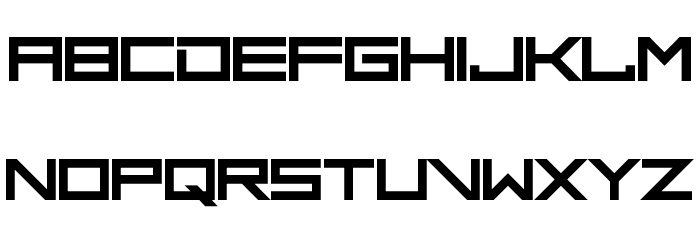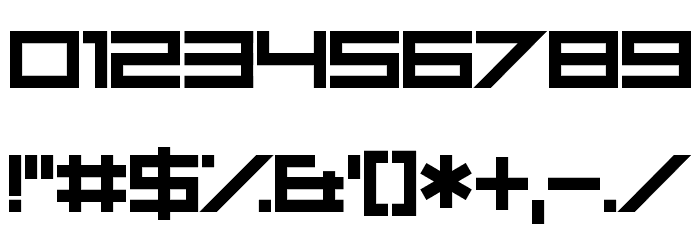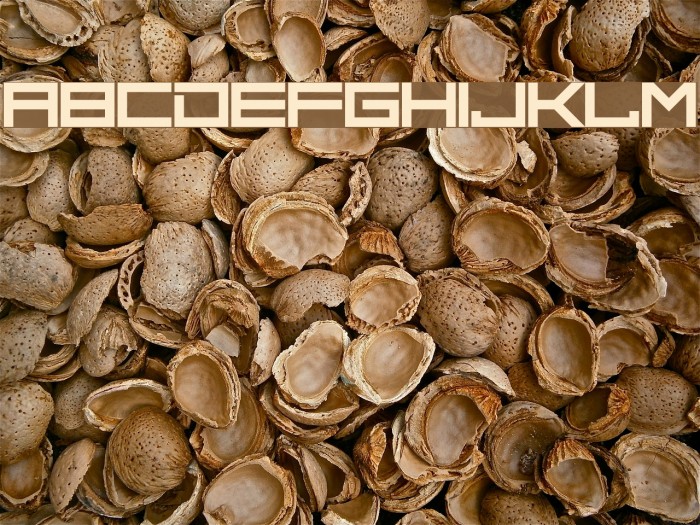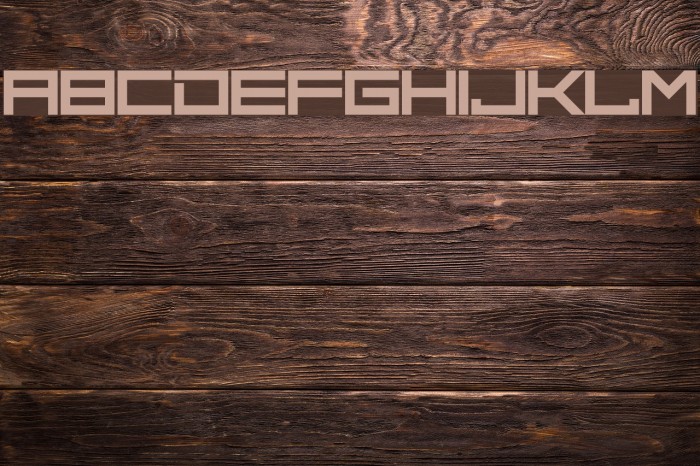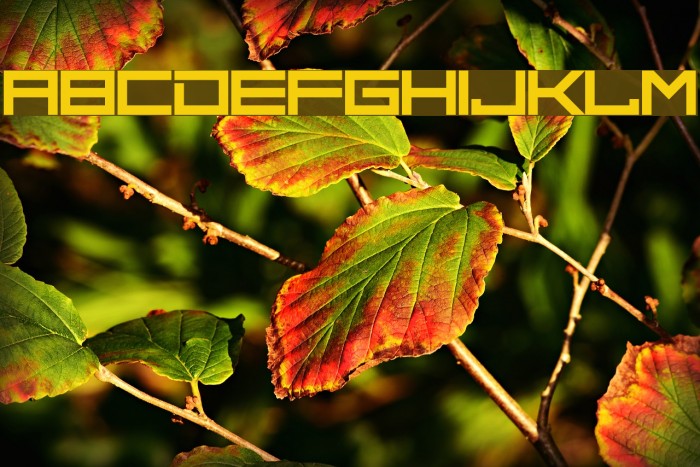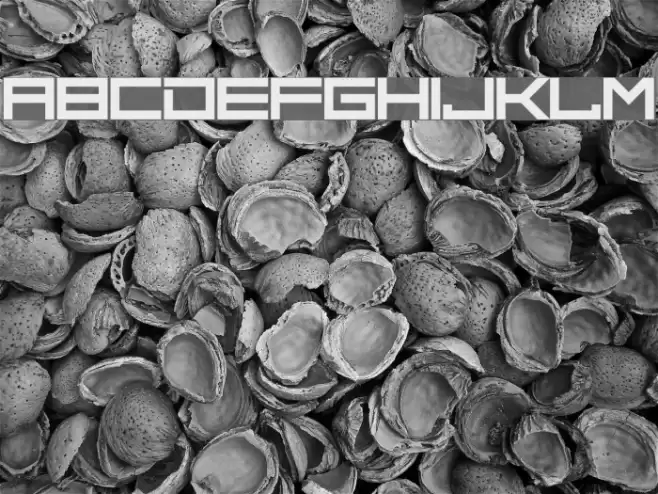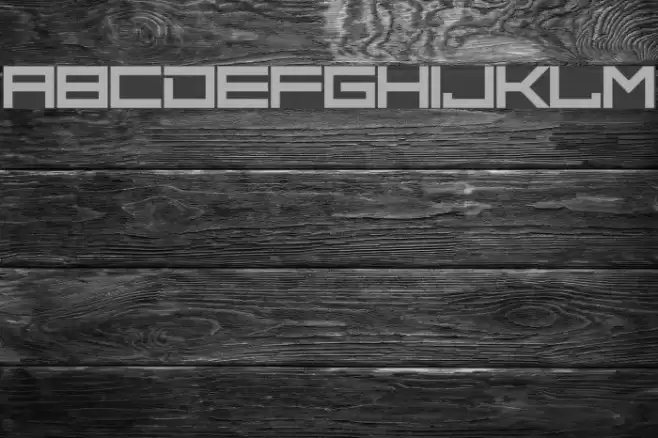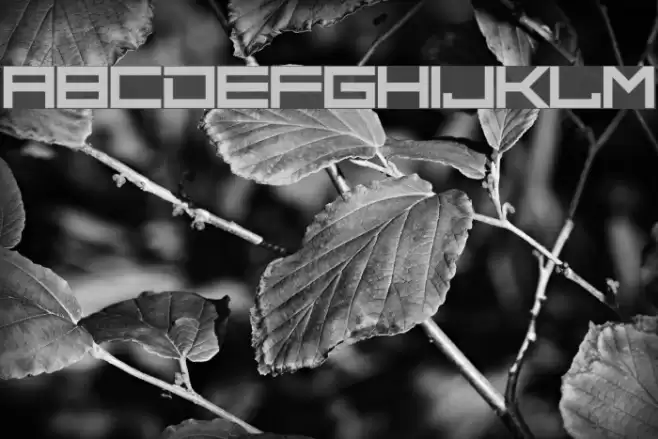
Blend Her Font
This font features a bold, geometric design with a futuristic and digital aesthetic. The characters are constructed with straight lines and sharp angles, giving them a blocky and mechanical appearance. The uppercase letters are uniform in height, while the numbers and special characters maintain the same angular style. The font's structure is consistent, with a strong emphasis on horizontal and vertical lines, creating a sense of stability and strength. The overall look is modern and technical, suitable for projects that require a contemporary and edgy feel.
A bold, geometric font with a futuristic and digital aesthetic.
- Proposed Projects: Ideal for technology branding, video game titles, sci-fi movie posters, and digital interfaces.